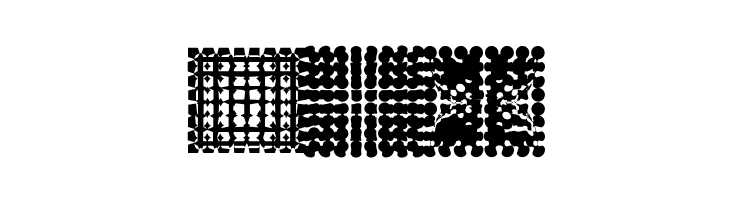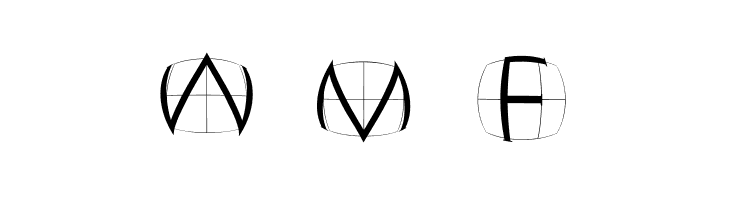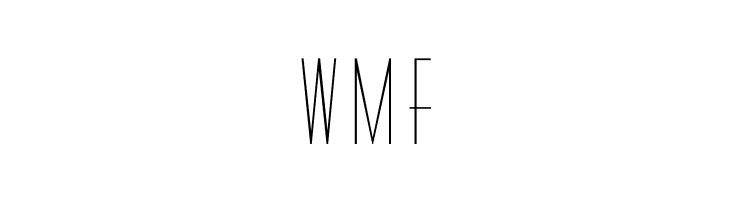
( Fonts by Mickey Rossi - www.subflux.com )
A sleek, ultra-thin font with high contrast and elongated forms.
( Fonts by Paul Reid - tracertong.co.uk )
A tall, narrow font with clean lines and a modern, elegant style.
( Fonts by Paul Reid - tracertong.co.uk )
A sleek, modern italic font with elongated, condensed letterforms.
A thin, modern font with clean lines and a geometric influence.
A modern, italicized font with sleek, elongated characters and minimal contrast.
A bold, Gothic-style font with characters enclosed in geometric shapes.
( Fonts by Casady & Greene )
A bold, high-contrast font with geometric flair and modern elegance.
A modern, condensed oblique font with sleek, elegant lines.
A bold, high-contrast font with Art Deco influences and geometric shapes.
( Fonts by Casady & Greene )
A bold, italicized font with elegant, elongated characters and a dynamic slant.
( Fonts by Casady & Greene )
A sleek, elegant italic font with high contrast and elongated characters.
A series of abstract patterns using dots and lines for a modern, artistic look.
A vintage, hand-crafted font with elongated strokes and a rustic charm.
An abstract, glitch-inspired font with fragmented, pixelated characters.
A modern, oblique font with a sleek, condensed style and medium contrast.
A bold, decorative font with a vintage and playful style.
( Fonts by Casady & Greene )
A bold, high-contrast serif font with a condensed and elegant style.
( Fonts by Casady & Greene )
A classic, high-contrast, condensed italic font with elegant and sophisticated styling.
A modern, geometric font with characters enclosed in circles.